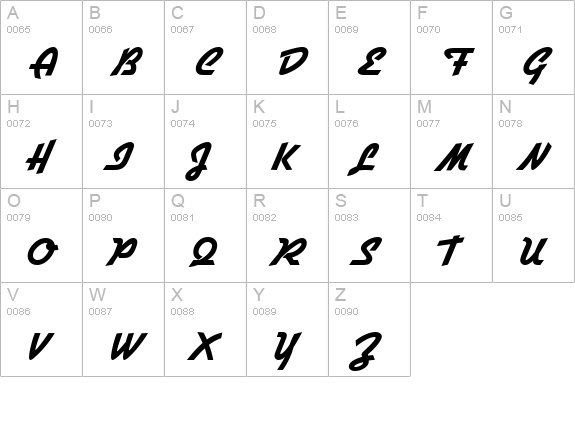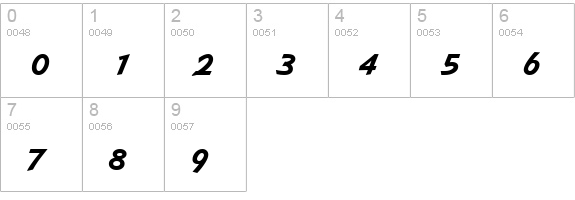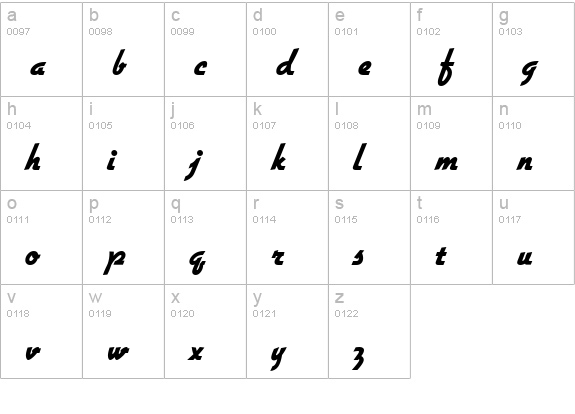
Giulio-Xbold-Regular is the standard, neutral variant in the Giulio typeface family \xE2\x80\x94 well suited to general body text, paragraphs, and standard typographic work.
Giulio-Xbold-Regular font is a modern and versatile typeface that exudes confidence and sophistication. With its bold and clean lines, this font is perfect for making a statement in your designs. Whether you're creating a logo, poster, or website, Giulio-Xbold-Regular font is sure to grab attention and leave a lasting impression. The best part? Giulio-Xbold-Regular font is completely free to download at FontsMarket.com. This means you can easily access this high-quality font and use it in your projects without any cost. So why wait? Add a touch of elegance to your designs with Giulio-Xbold-Regular font today!